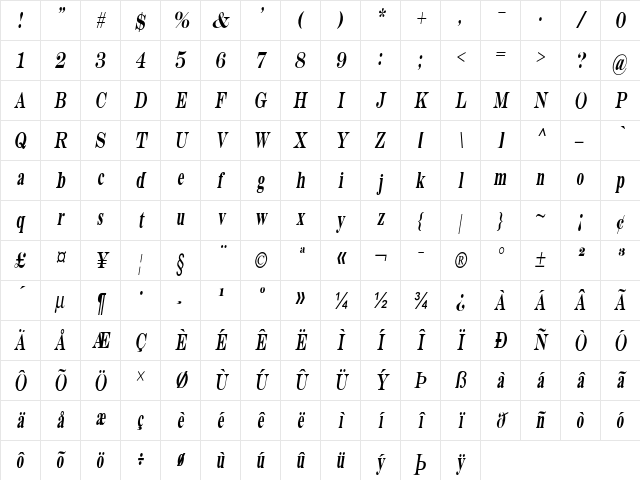
Muritania Condensed Italic
Style: Condensed Italic
Muritania Family
Muritania Condensed Italic
Design Context for Muritania
Muritania is a composed and adaptable typeface that performs quietly and consistently across a wide range of design contexts. The slanted form adds forward momentum and visual energy. Its narrow stance lets it pack a punch even in space-constrained designs.
Pro Tip: Use Muritania for emphasis, pull quotes, and subheadings where its slanted energy can add rhythm to the layout.